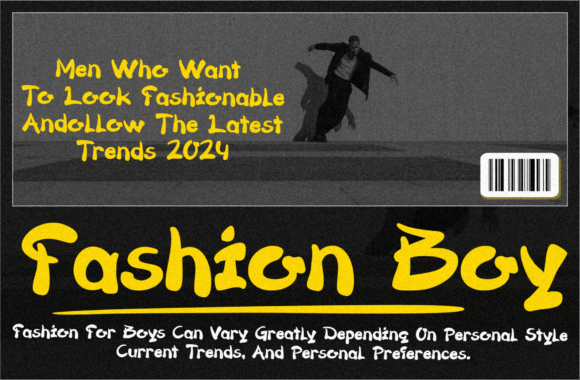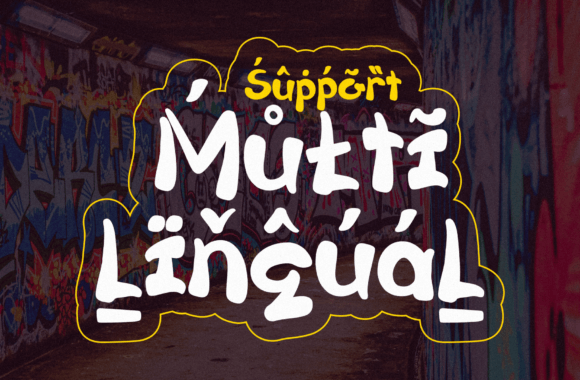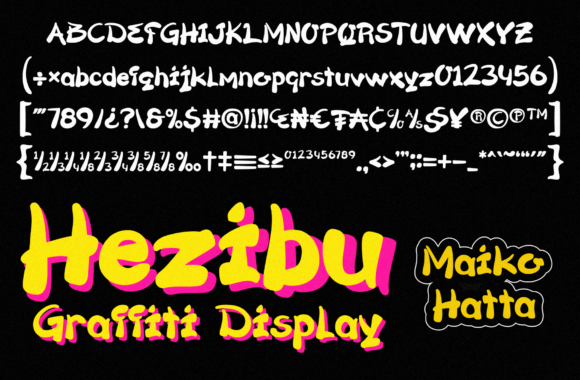
Introduction to Hezibu Font
Have you ever been working on a creative project, pouring your heart and soul into it, only to find that the perfect font to bring it all together is nowhere to be found? This is a frustrating reality many designers face, but we’re here to change that with the introduction of our new product: Hezibu Font.
As a valuable design resource, Hezibu Font combines boldness and readability in a unique way, merging the expressive brush handwriting style with contemporary design elements. This results in a fresh, dynamic look that’s perfect for modern design aesthetics.
Whether you’re creating logo designs, marketing materials, or signage, Hezibu Font is the perfect choice for conveying messages with a dynamic and engaging style. With its high-quality design and free download option, you can take your creative projects to the next level with a transparent background that allows for endless customization possibilities.
Key Features of Hezibu Font
- Designed with a unique aesthetic, perfect for modern and minimalist designs
Honest Review: Hezibu Font
I recently stumbled upon the Hezibu Font and I’m excited to share my honest review with you. As a designer, I’m always on the lookout for high-quality design resources to elevate my creative projects. This font definitely fits the bill!
Here are some things that work well with the Hezibu Font:
- ✨ Unique and quirky design that’s perfect for adding a touch of personality to your work
However, I do have to mention a few limitations:
- ⚠️ Limited character set, which may be a concern for designers working on projects with complex text requirements
- ⚠️ May not be suitable for projects requiring a high level of professionalism or formal tone
Overall, I’m impressed with the Hezibu Font and would definitely recommend it for creative projects that require a unique touch. Its high quality and free download make it a valuable resource for designers, and its transparent background makes it easy to integrate into your design. Just be aware of its limitations, and you’ll be all set to create some amazing work with this font!
Common Use Cases for Hezibu Font
Hezibu Font is commonly used in graphic design, digital art, and creative projects.
It’s perfect for adding text to images, creating logos, or designing social media graphics.
Comparison to Hezibu Font: While Hezibu Font has a more playful and whimsical feel, Alex Brush Font is more refined and sophisticated, making it a great alternative for projects requiring a more elegant touch.